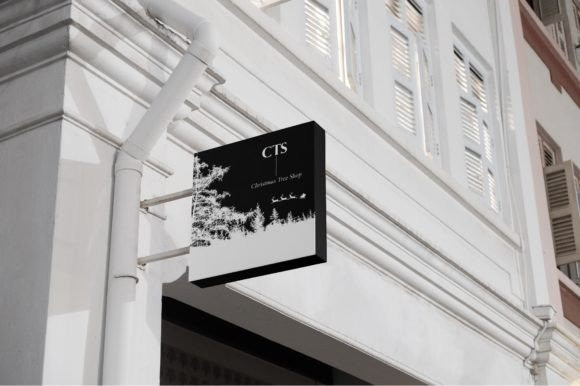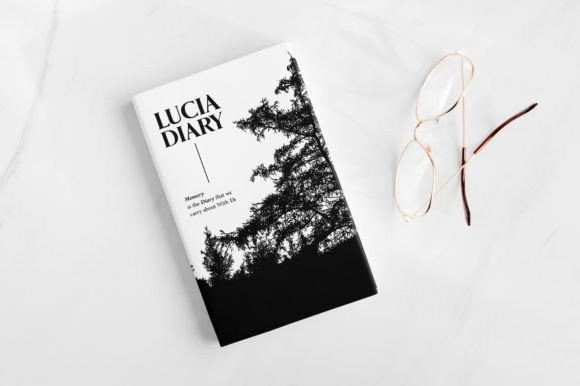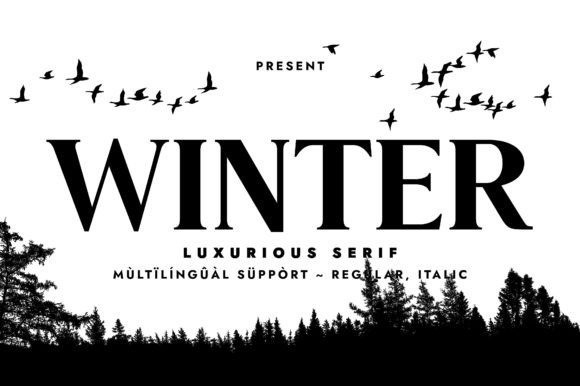
Winter Serif Typeface
Winter Serif Typeface is a cold and clean serif font. It has a classy, elegant, and modern look that can be used for logos, branding, invitations, stationery, wedding designs, social media posts, and much more!